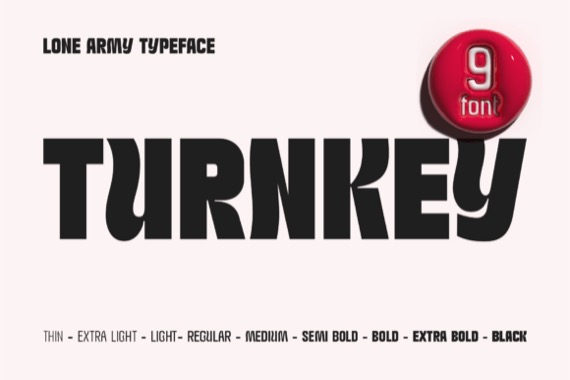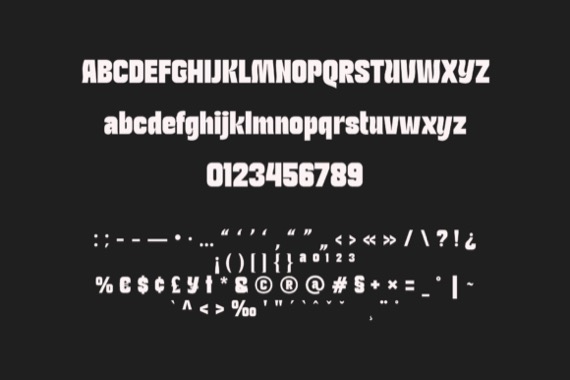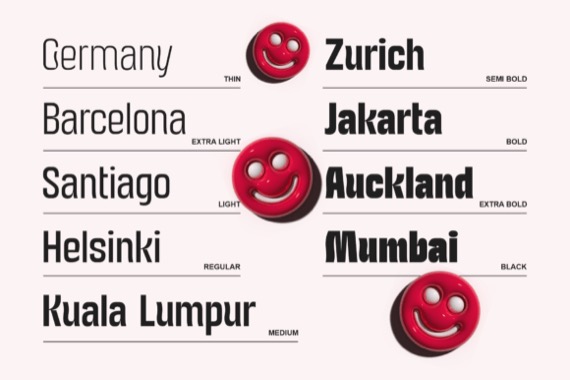
Proudly introducing a modern and chic display font from Lone Army, Turnkey is a captivating and vibrant font that effortlessly blends flowy and psychedelic elements with a playful, joyful, and contemporary retro vibe. Its curvaceous letterforms dance across the page, exuding a sense of fluidity and movement. The font’s unique design takes inspiration from retro aesthetics while infusing it with a modern twist. With Turnkey, you can add a touch of whimsy and nostalgia to your projects, creating a visually captivating experience that delights the senses.
Turnkey Display Font